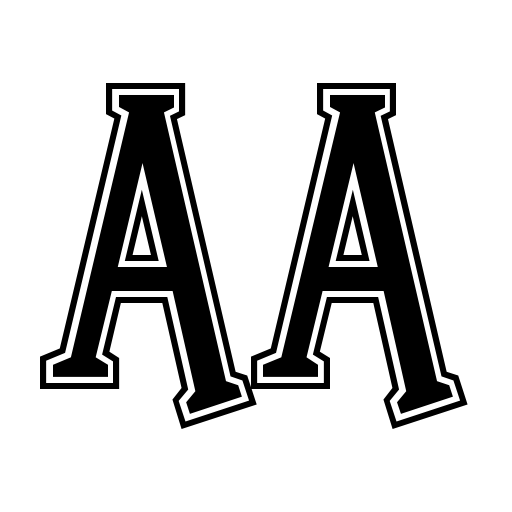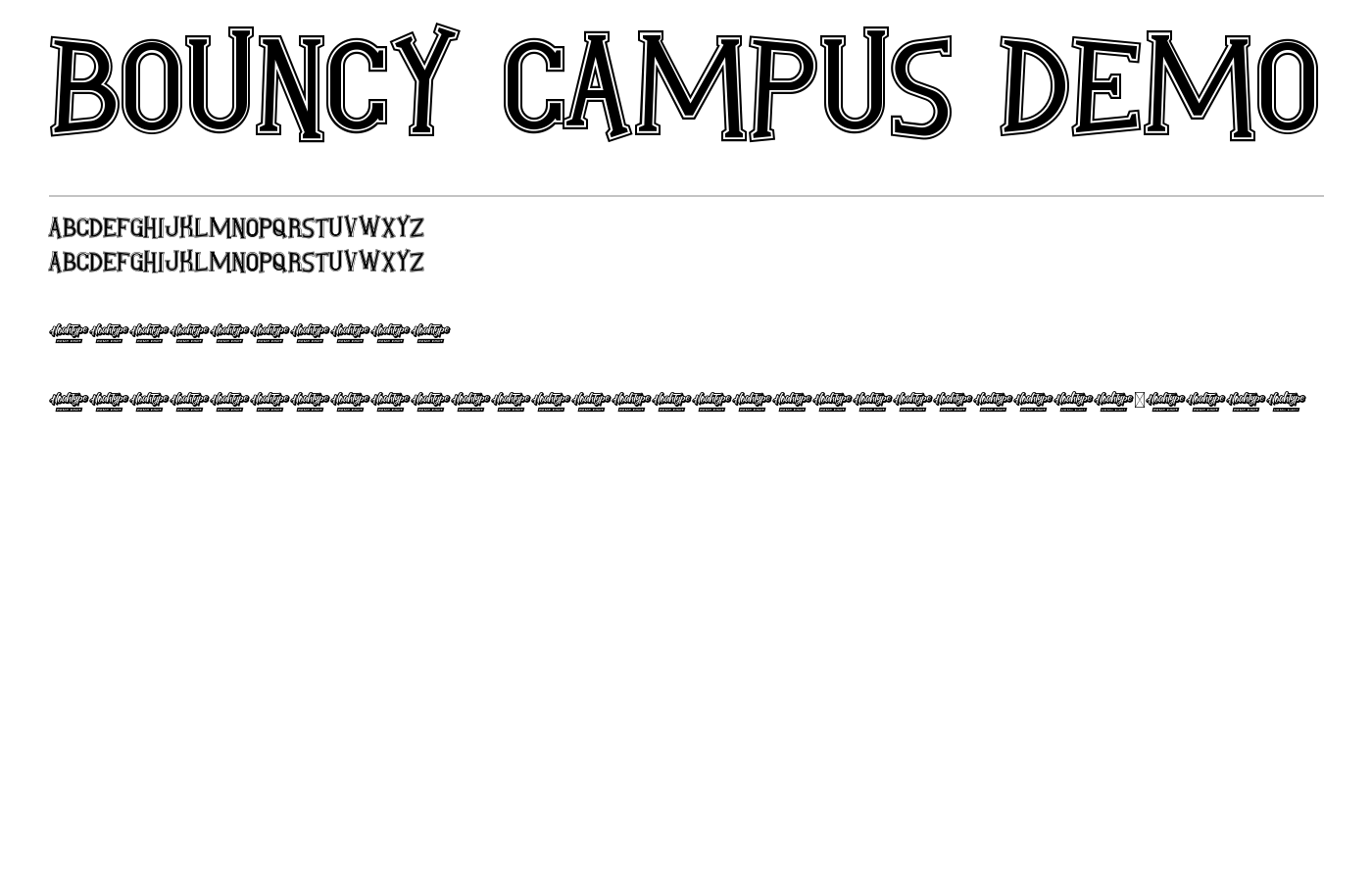
Bouncy Campus Demo is a playful and bold slab serif font with a distinctive, slightly irregular outline that gives it a lively, casual feel. Its strong vertical emphasis and thick serifs combined with a quirky bounce in the letterforms make it perfect for eye-catching headlines, logos, and youthful branding that seeks to convey energy and creativity. This font works well in informal, fun settings such as school or sports-related designs, posters, and packaging where personality and impact are key.
Bouncy Campus Demo Font
About Bouncy Campus Demo Font